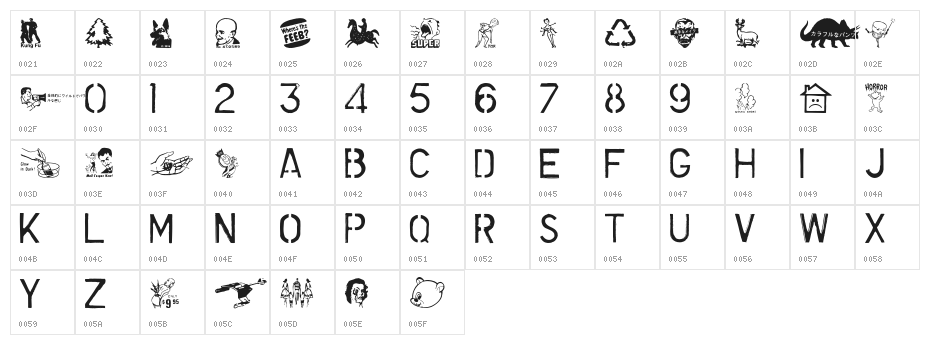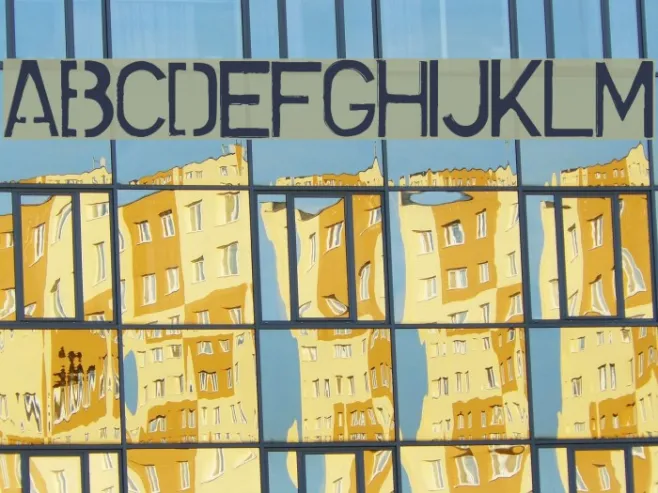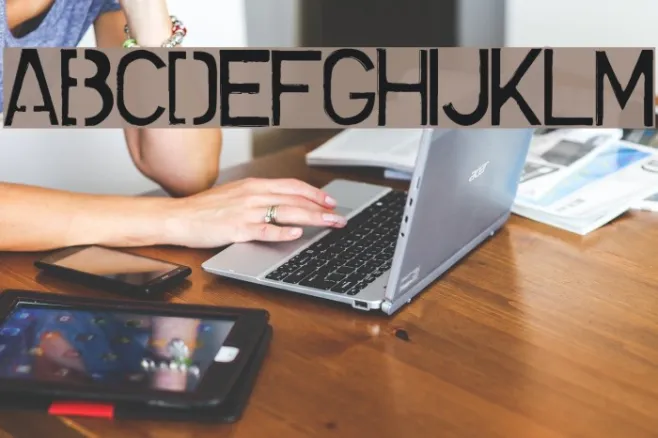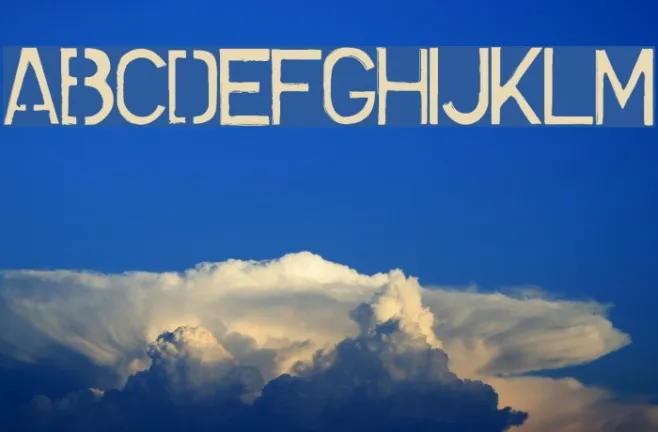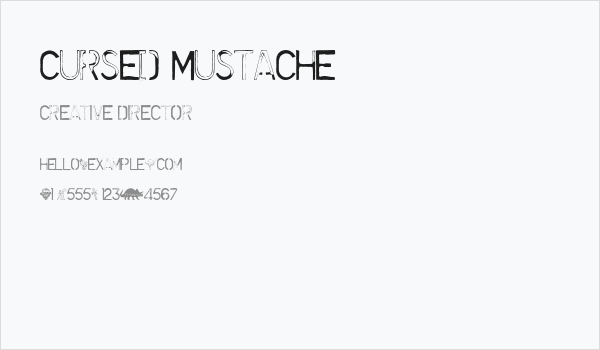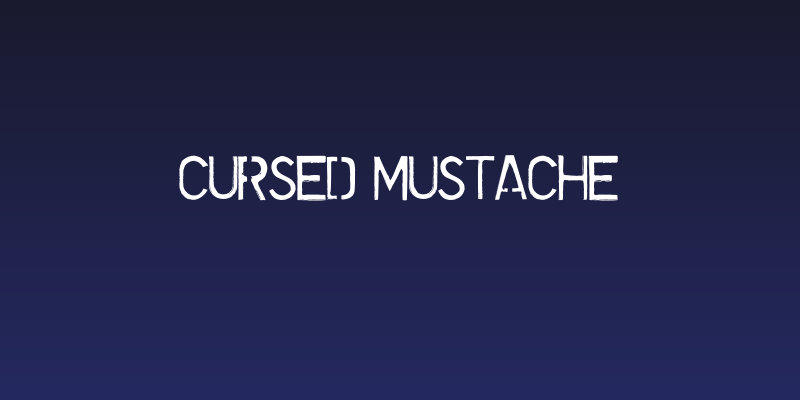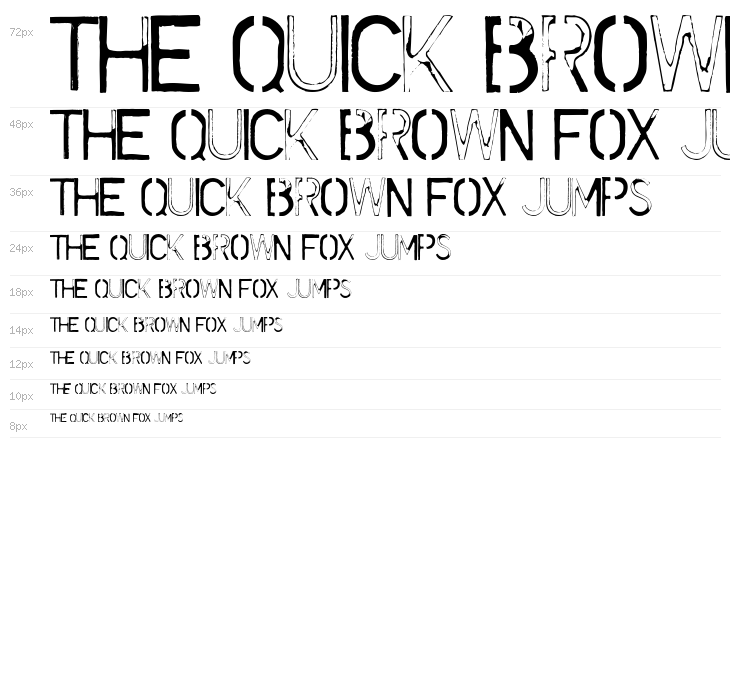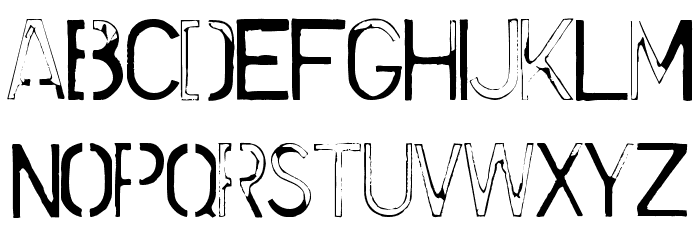
Cursed Mustache Font
Cursed Mustache Description
This font features a bold and distressed style, characterized by its rough edges and uneven strokes. The uppercase letters are prominent and eye-catching, making them suitable for impactful designs. The numbers and special characters maintain the same rugged aesthetic, adding to the font's cohesive look. Its unique, grunge-like appearance gives it a distinct personality, perfect for projects that require a touch of edginess or a vintage feel. The font's irregularities in line thickness and texture contribute to its dynamic and energetic vibe.
| Overall Style | Vintage, Grunge |
| Proposed Projects | Ideal for posters, album covers, branding for edgy products, or any design needing a vintage or rebellious touch. |